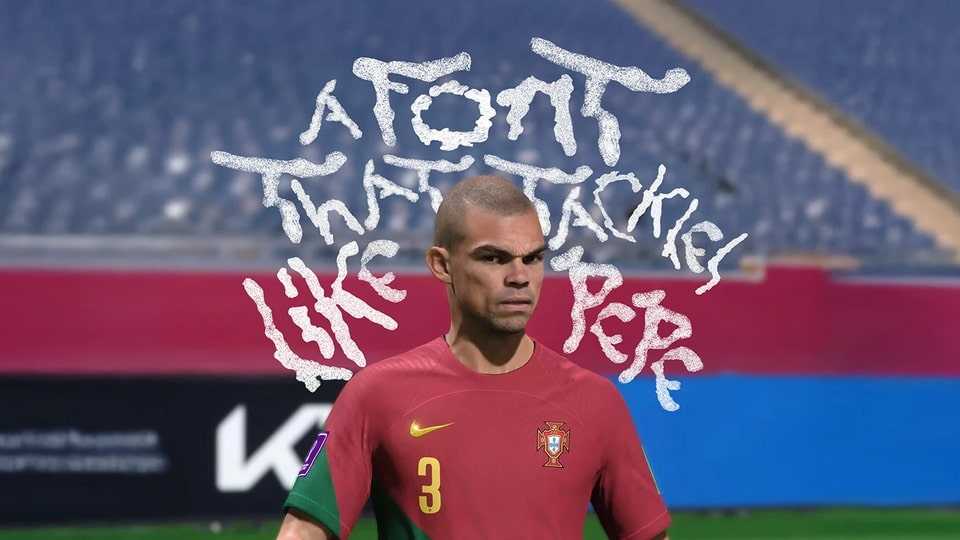
Slide Tackle Font › Fontesk – Download Grátis
Download Slide Tackle font, a typeface born from the marks left by slide tackles on the FC25 game field. Designed by legends with more red cards than anyone else: Pepe, Sergio Ramos, Materazzi, Luis Suárez, and of course, Gerardo Bedoya.